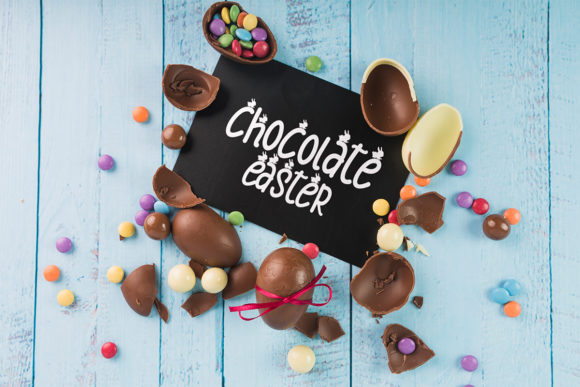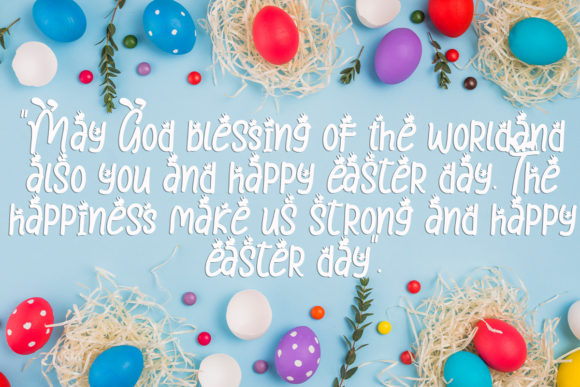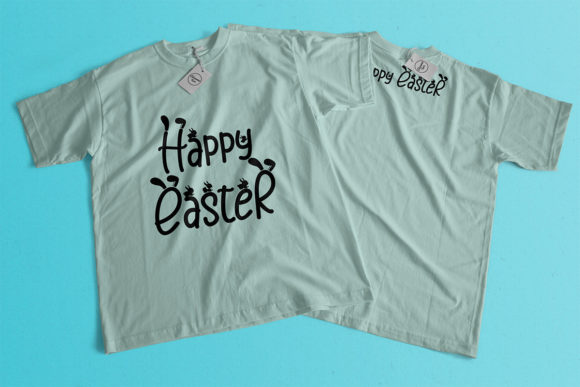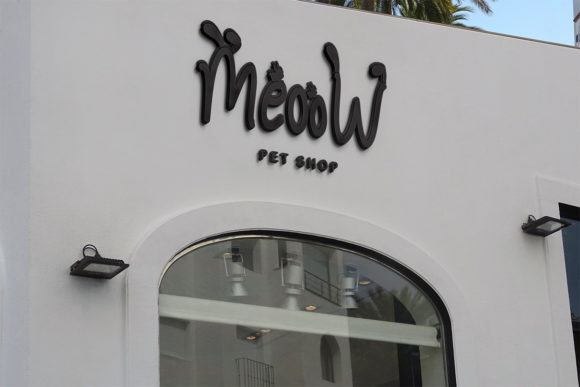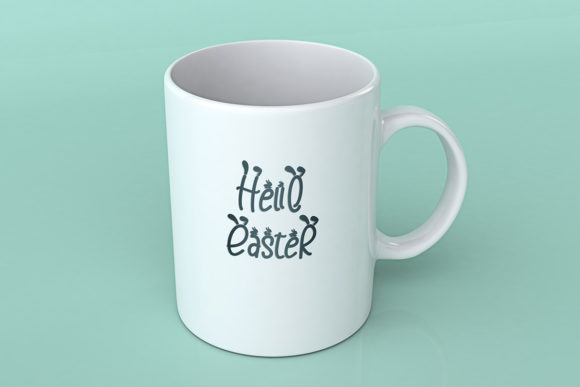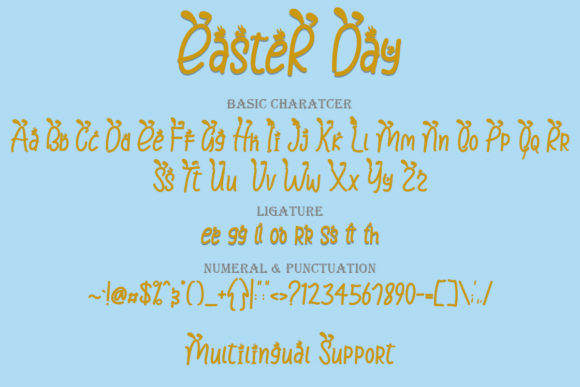
Easter Day Font: Add a Touch of Whimsy to Your Designs
Easter Day is just around the corner, and what better way to celebrate than with a font that’s as cute and charming as the holiday itself? Introducing Easter Day Font, a whimsical and quirky display font that’s sure to brighten up each of your designs. In this article, we’ll take a closer look at this delightful font and explore how you can use it to add a touch of Easter magic to your projects.
What is Easter Day Font?
Easter Day Font is a display font designed to capture the playful and festive spirit of Easter. With its cute and charming lettering, this font is perfect for adding a touch of whimsy to your designs. Whether you’re working on a project for Easter-themed crafts, holiday cards, or spring-inspired branding, Easter Day Font is sure to delight.
Key Features of Easter Day Font
- Whimsical and quirky design: Easter Day Font features a unique and playful design that’s sure to stand out in any project.
- Cute and charming lettering: Each letter is carefully crafted to be adorable and eye-catching, making it perfect for Easter-themed designs.
- Display font: Easter Day Font is designed specifically for display purposes, making it perfect for headlines, titles, and other prominent text elements.
How to Use Easter Day Font in Your Designs
Easter Day Font is a versatile font that can be used in a variety of design projects. Here are a few ideas to get you started:
- Easter cards and invitations: Add a personal touch to your Easter cards and invitations with this charming font.
- Easter-themed crafts: Use Easter Day Font to add a touch of whimsy to your Easter-themed crafts, such as Easter egg decorations or bunny-themed DIY projects.
- Spring-inspired branding: Incorporate Easter Day Font into your spring-inspired branding projects, such as logos, packaging, or advertising materials.
- Social media graphics: Use Easter Day Font to create eye-catching social media graphics for Easter-themed posts and promotions.
Tips for Getting the Most Out of Easter Day Font
To get the most out of Easter Day Font, here are a few tips to keep in mind:
- Use it sparingly: Easter Day Font is a display font, so it’s best to use it sparingly to add emphasis to specific text elements.
- Pair it with complementary fonts: Pair Easter Day Font with complementary fonts to create visual interest and add depth to your designs.
- Experiment with colors and textures: Don’t be afraid to experiment with different colors and textures to add an extra layer of whimsy to your designs.
Easter Day Font is a delightful and charming display font that’s perfect for adding a touch of Easter magic to your designs. With its whimsical and quirky design, cute and charming lettering, and ease of use, this font is sure to brighten up each of your projects. Whether you’re a designer, crafter, or simply someone who loves Easter, Easter Day Font is a great addition to your font collection. So why not give it a try and see how it can add a touch of whimsy to your designs?